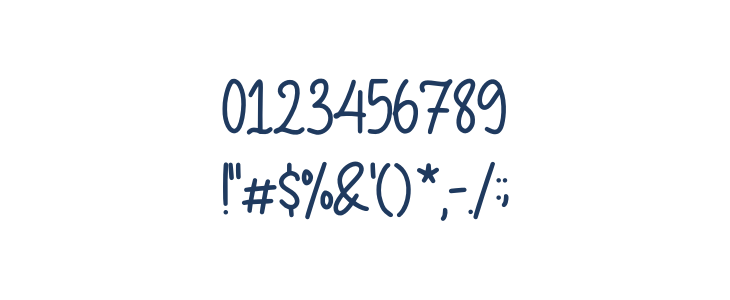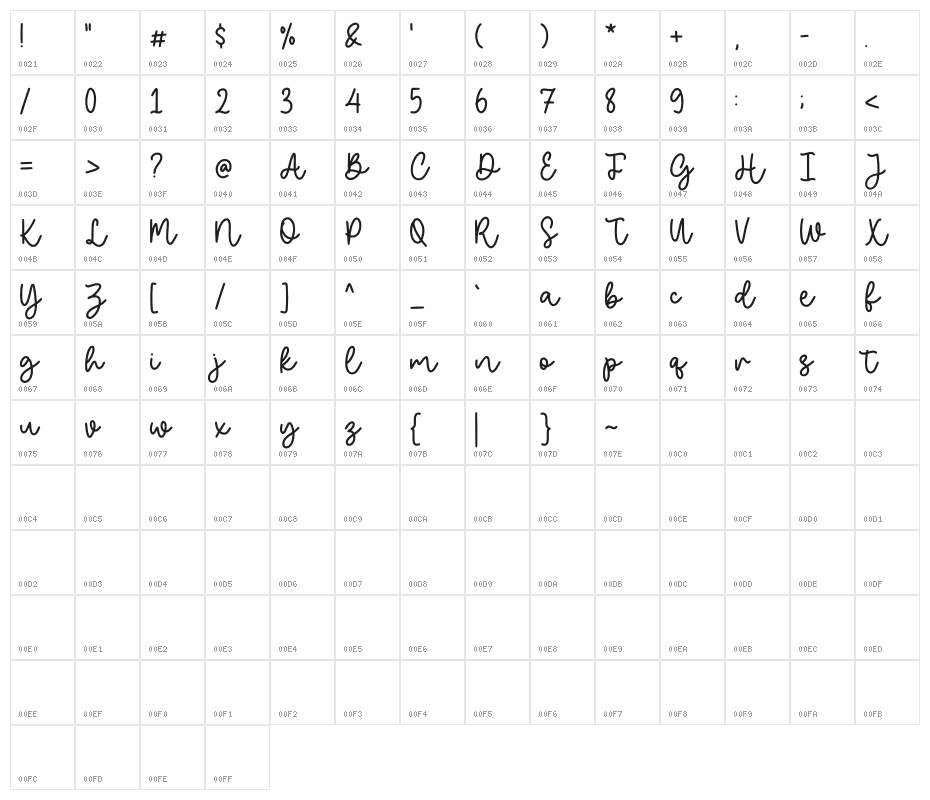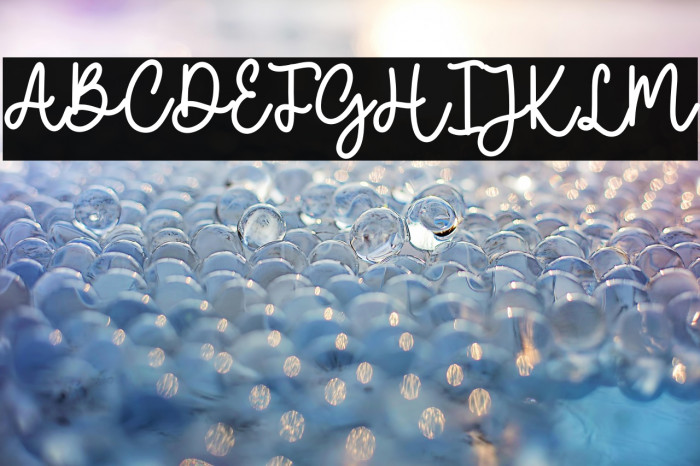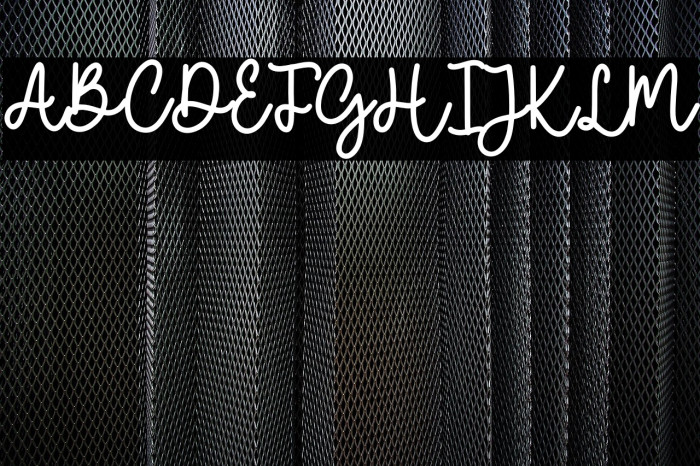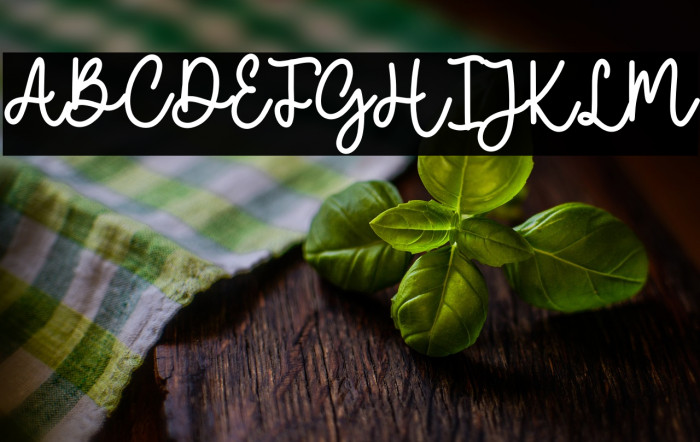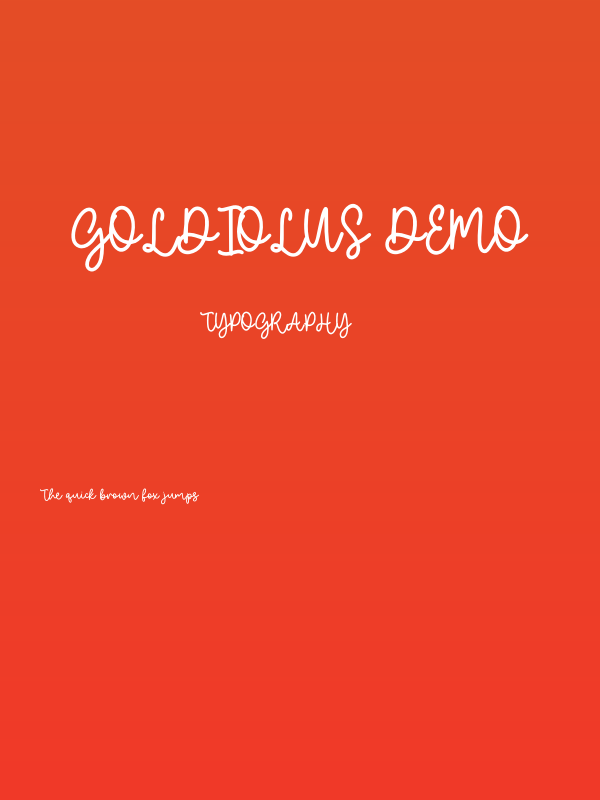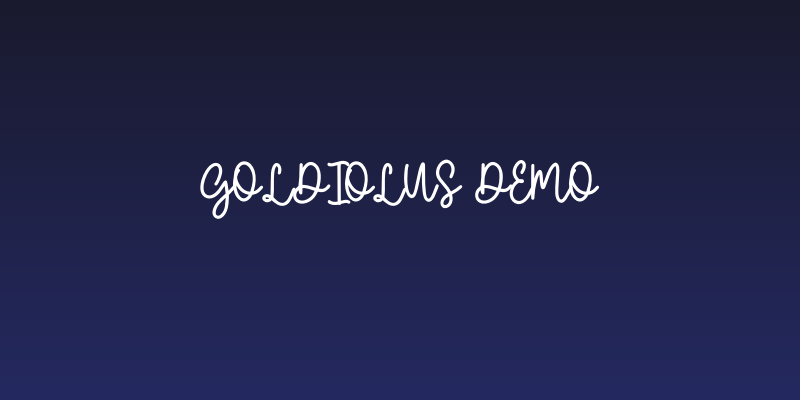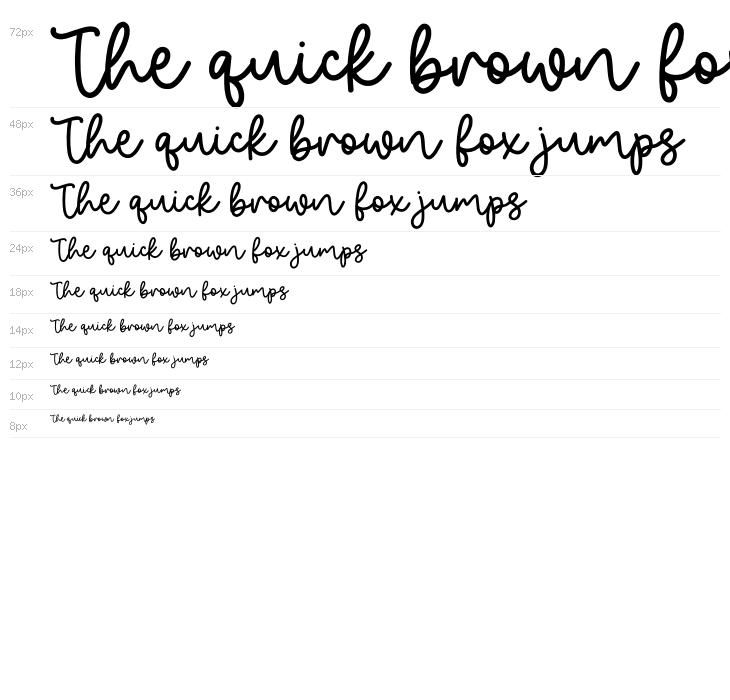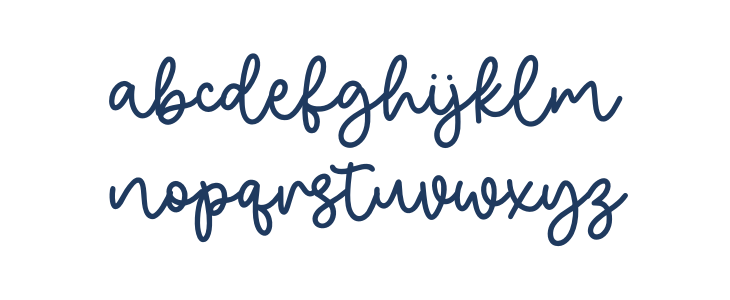
Goldiolus Demo Font
Goldiolus Demo Description
This font features a playful and casual handwritten style, characterized by its flowing and interconnected letterforms. The uppercase letters maintain a consistent height, while the lowercase letters exhibit a charming irregularity that adds to the font's whimsical appeal. The numerals are clear and legible, complementing the overall style. Special characters are seamlessly integrated, maintaining the font's cohesive look. The strokes are smooth and rounded, giving a friendly and approachable feel. This font is ideal for projects that require a personal touch, such as invitations, greeting cards, or creative branding.
| Overall Style | Casual, Whimsical |
| Proposed Projects | Ideal for invitations, greeting cards, personal branding, and creative projects. |